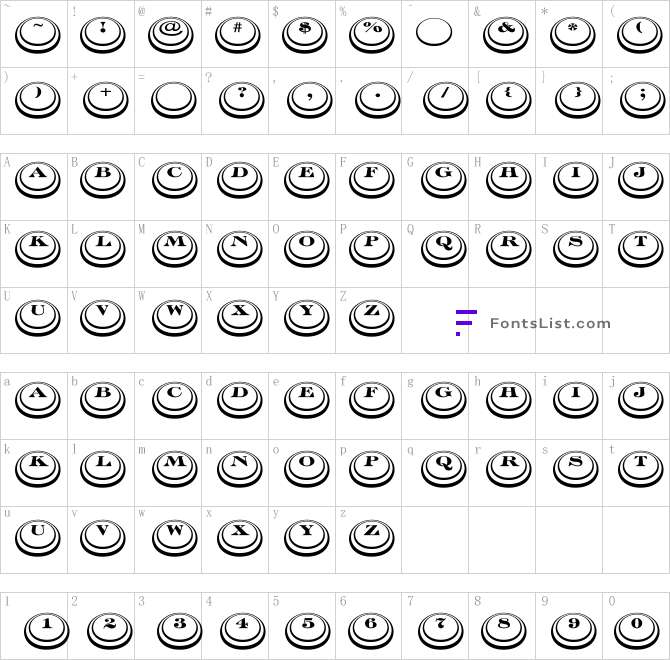
- Font Name:a_DiscoSerifDblDn3D
a_DiscoSerifDblDn3D.ttf is a very beautiful artistic font, a_DiscoSerifDblDn3D.ttf is widely used in the design and printing of various books and pictures,a_DiscoSerifDblDn3D.ttf has a strong visual impact,a_DiscoSerifDblDn3D.ttf is a commonly used font in newspapers, magazines and books, and is used in posters, e-commerce Poster design, store design, logo design, font design and other fields.a_DiscoSerifDblDn3D.